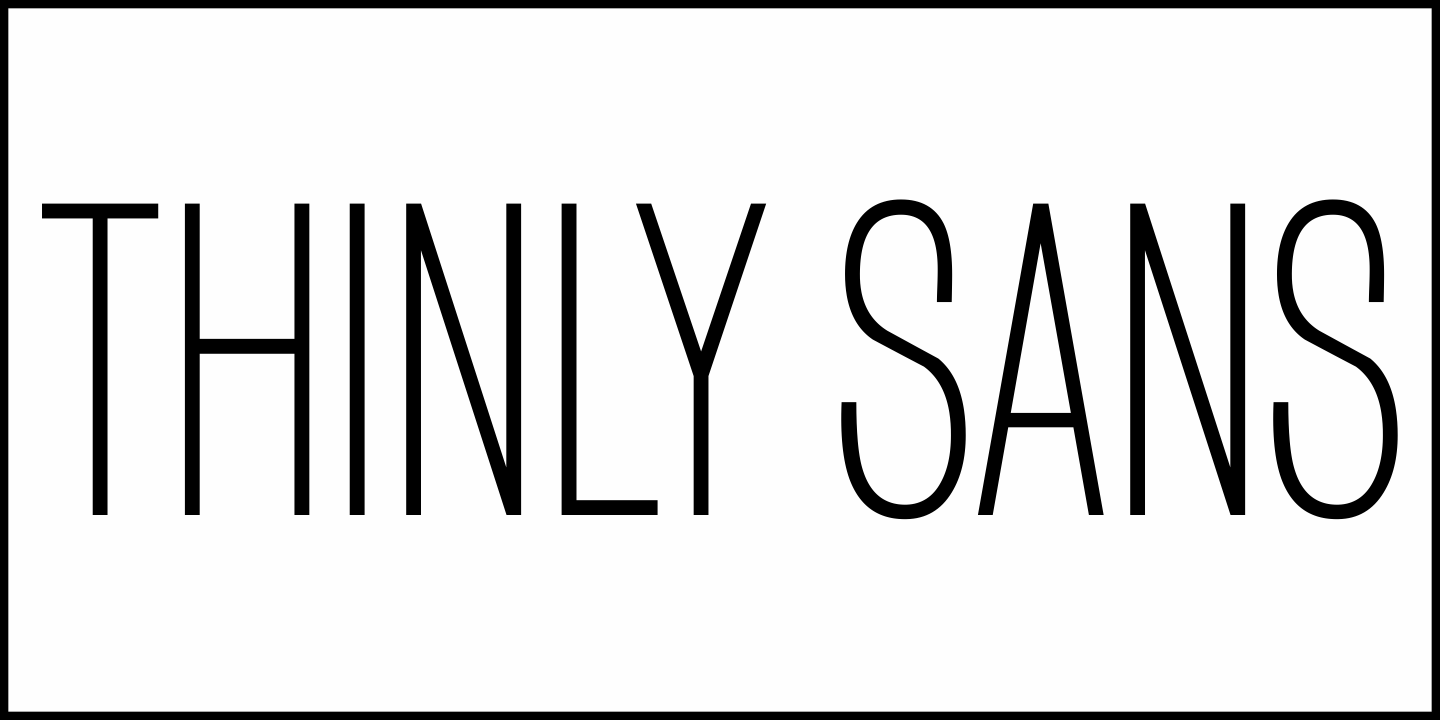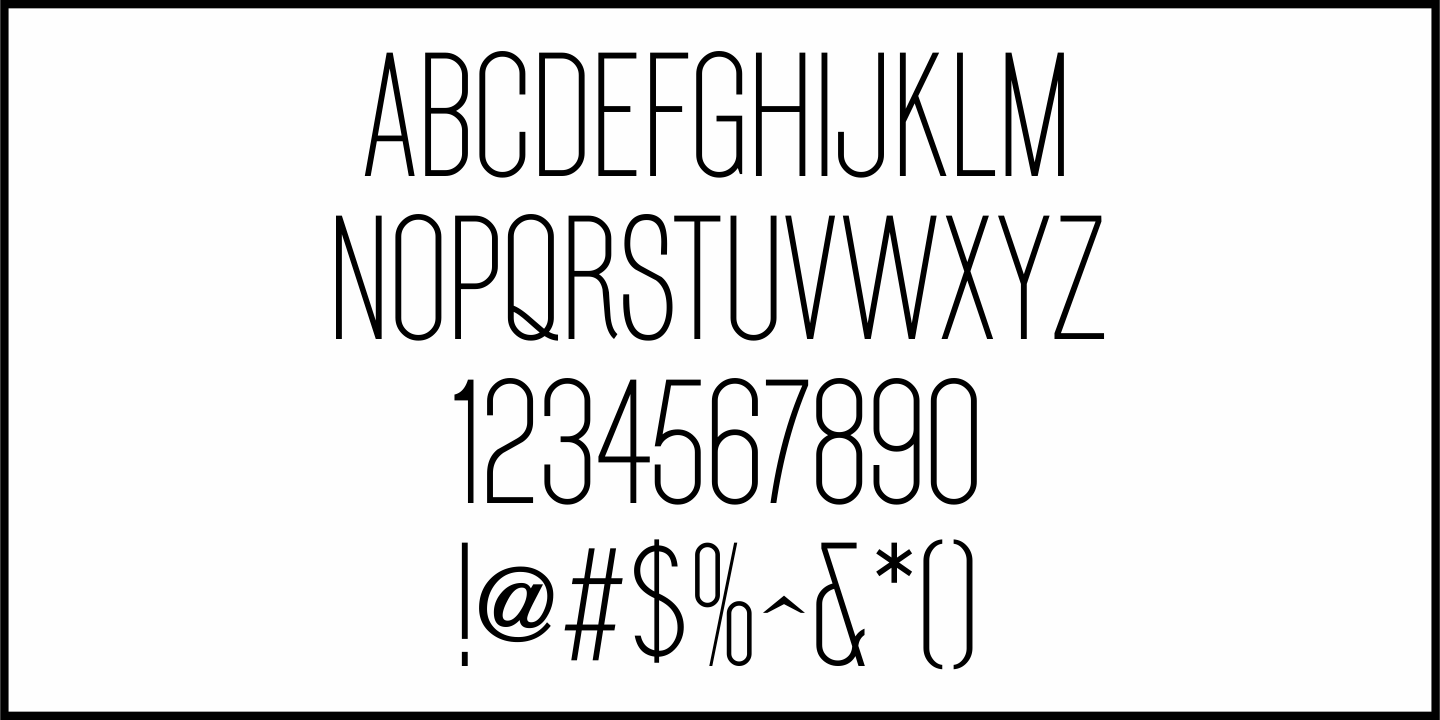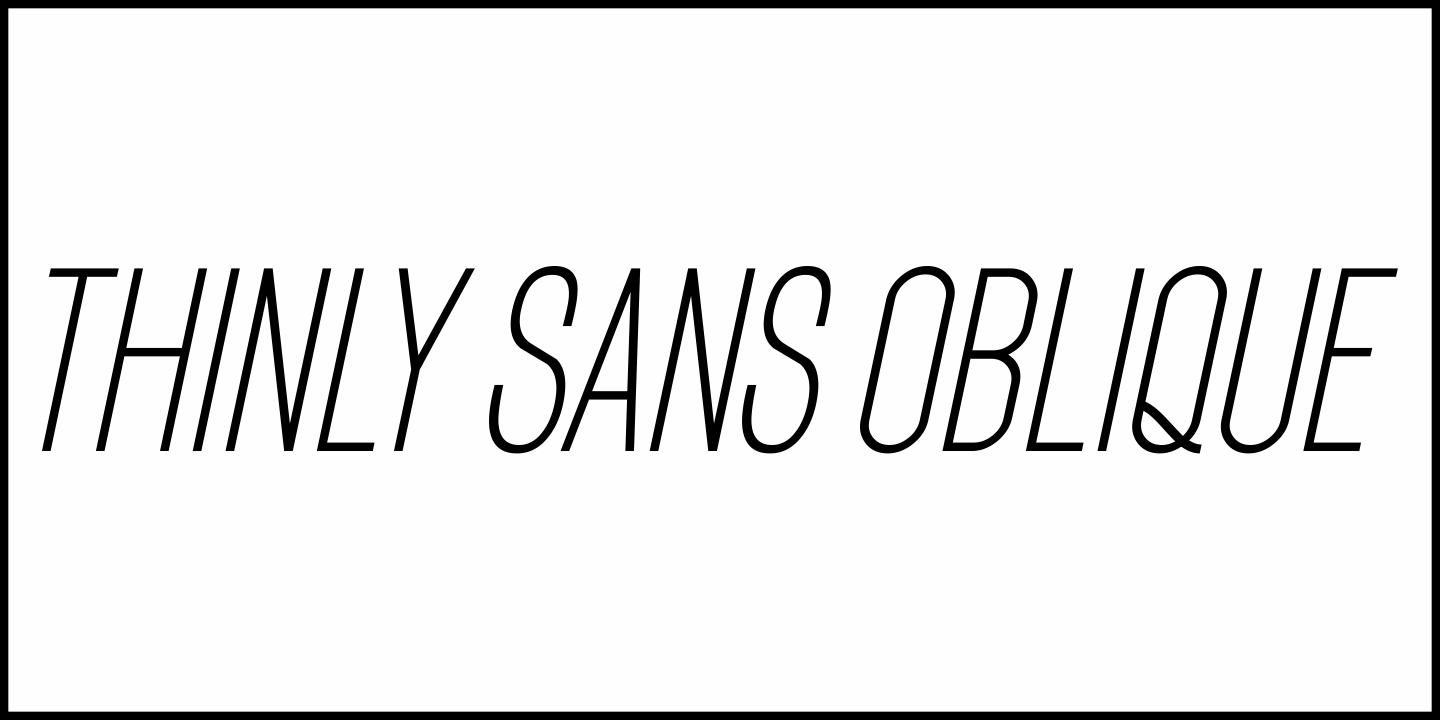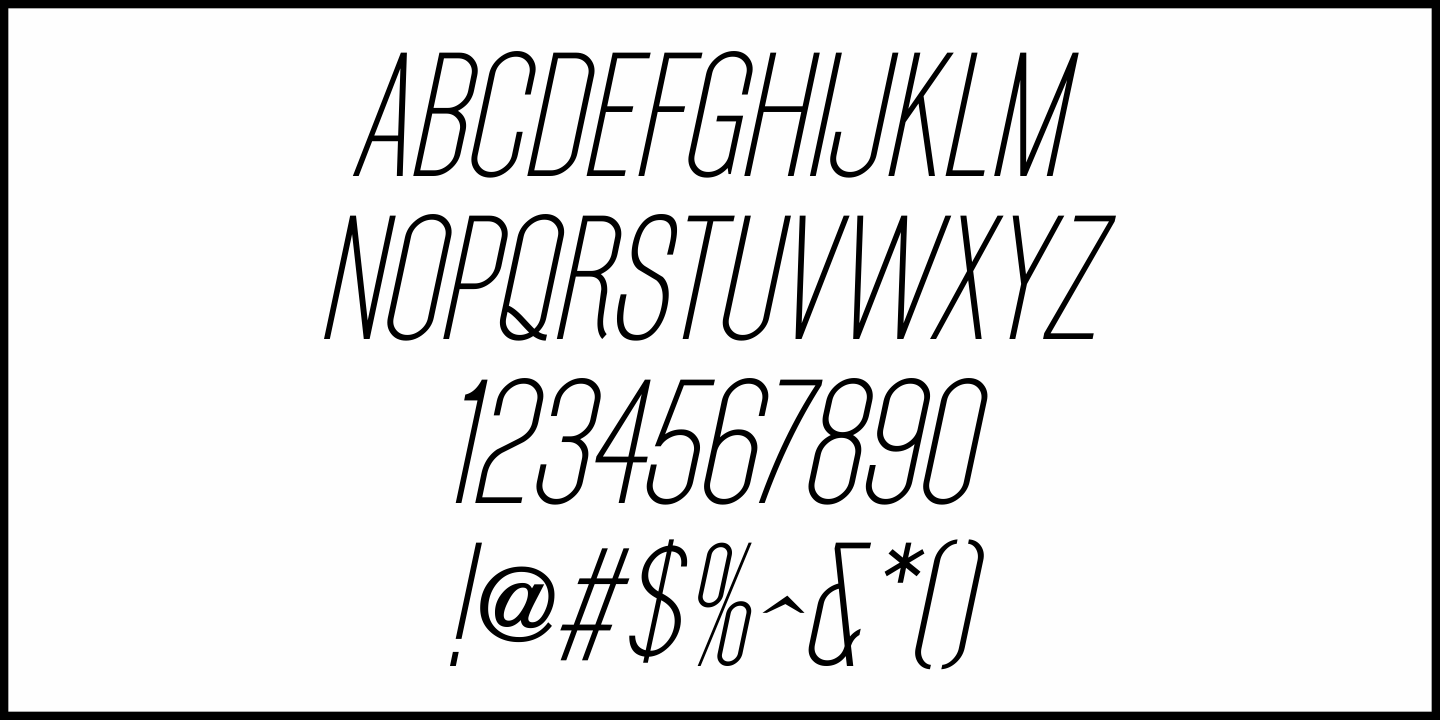
Thinly Sans
A condensed sans serif letterpress type font displayed within the pages of a vintage American Type Founders specimen book was called "ATF Combination Condensed Gothic". Thin in weight, but clear and legible, this design inspired a digital revival.
The original numerals shown on the specimen page did not seem to perfectly match the alphabet, as they were slightly wider and looked as if they were supplied from a different typeface. Different numerals have been drawn based on the structure of the letters themselves to make the overall look more balanced.
Thinly Sans JNL is available in both regular and oblique versions.